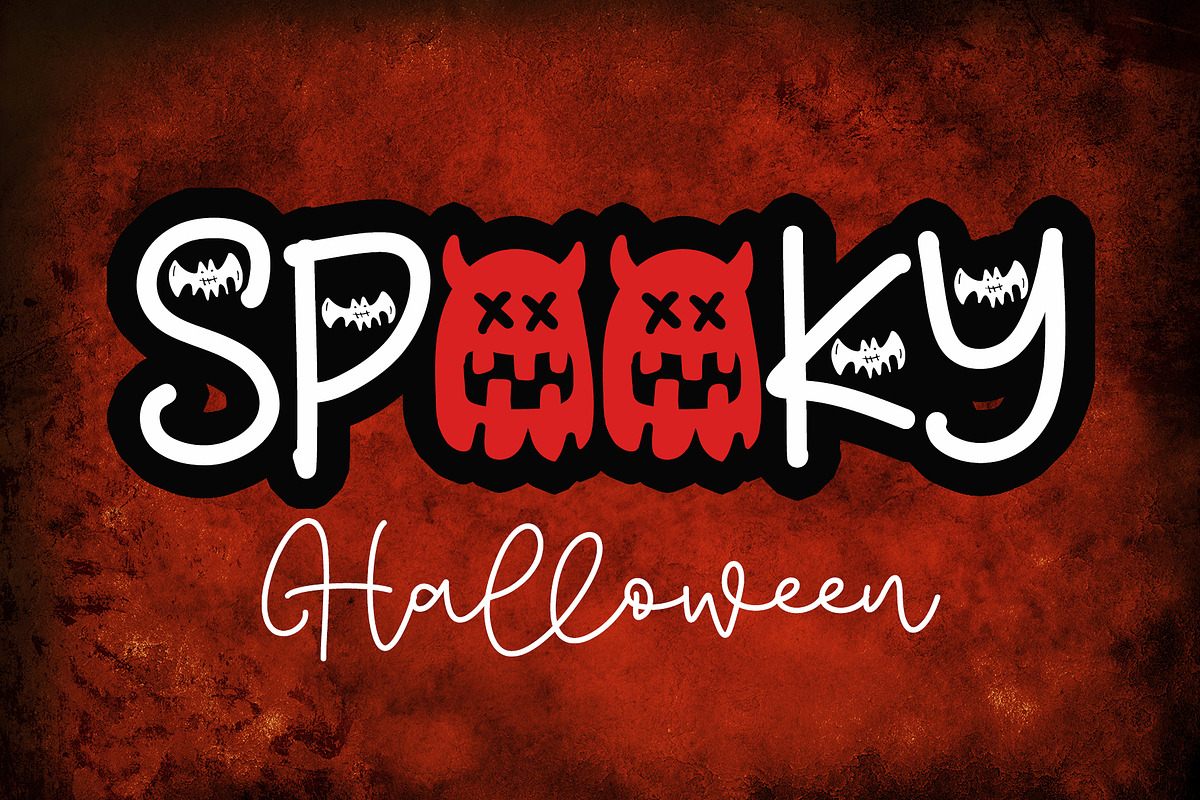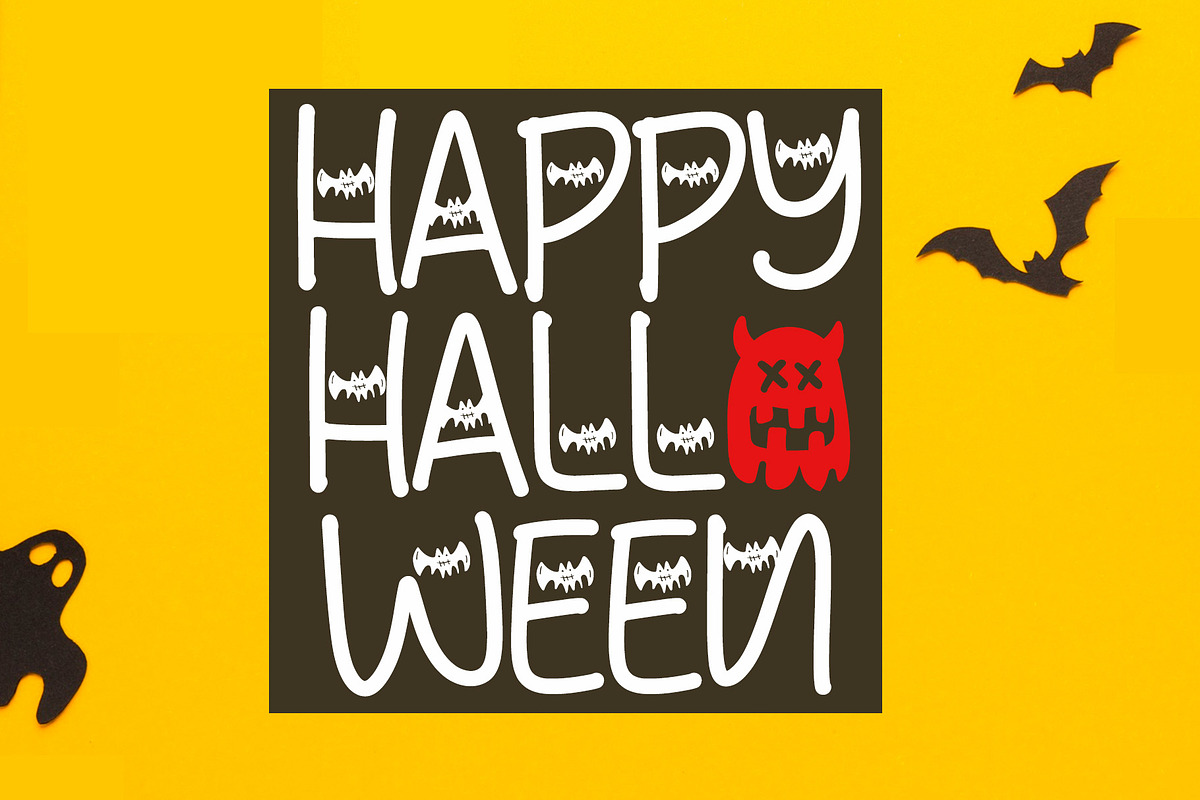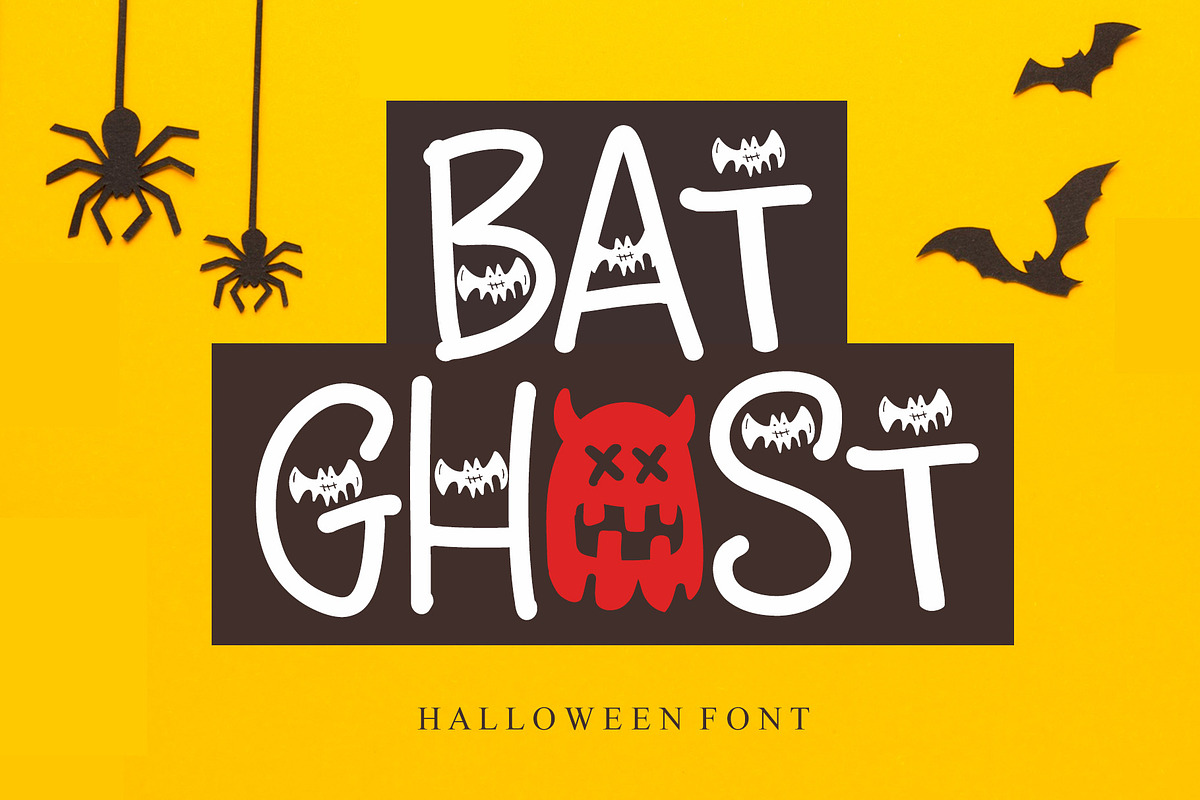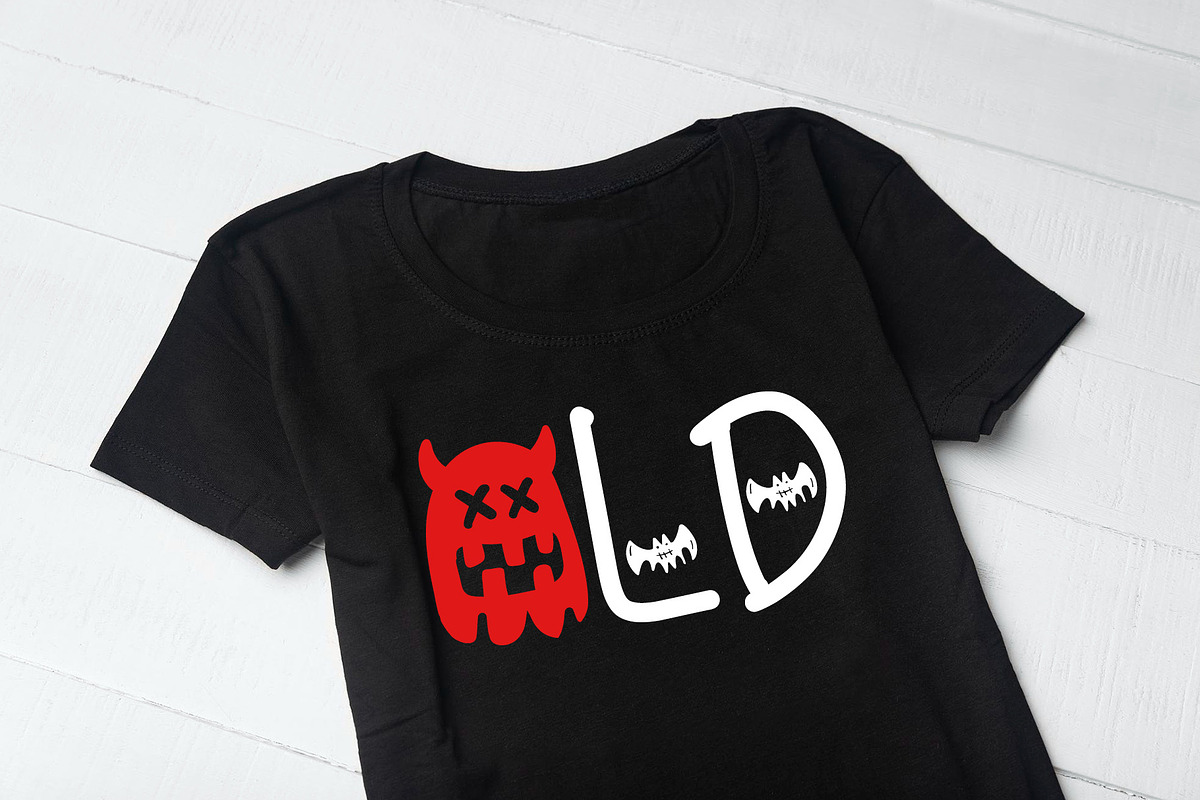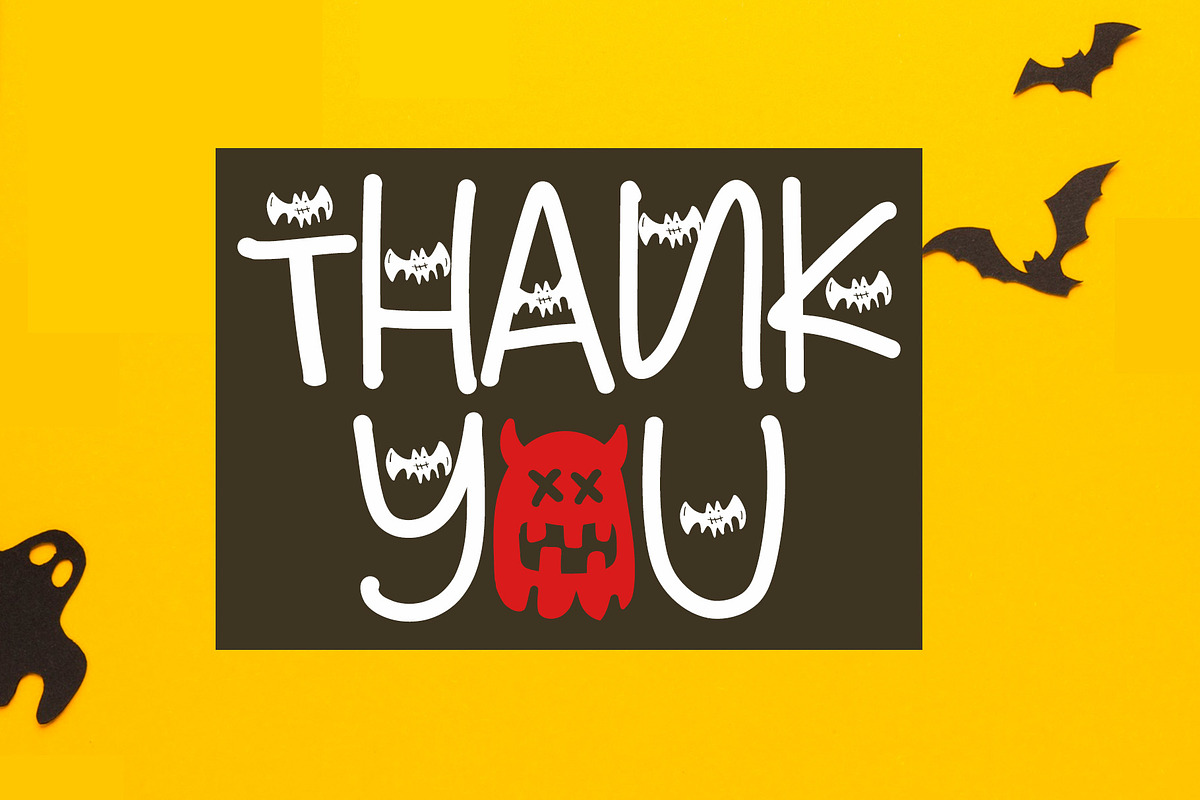
Bat Ghost
Bat Ghost is a Halloween decorative font. Add it to your Halloween crafts, horror movie posters, t-shirts and anything else that requires a spectacular look.